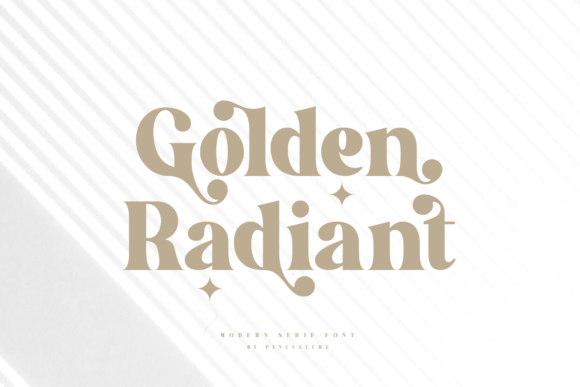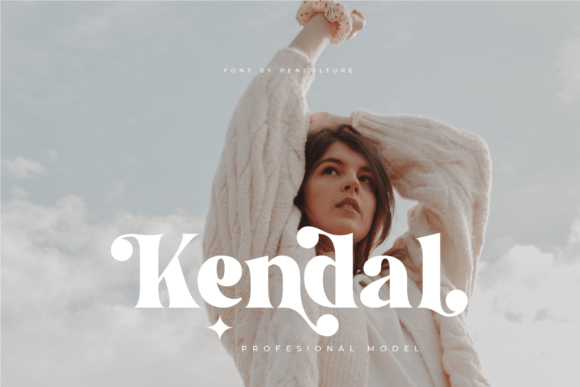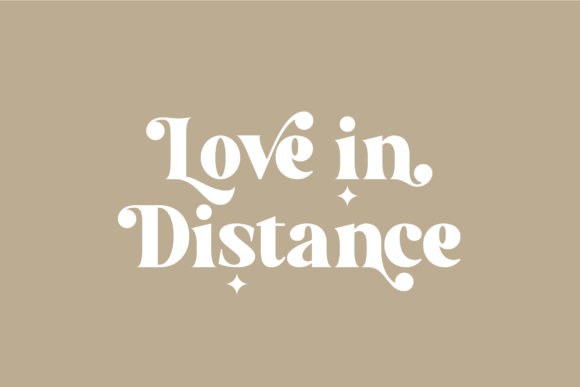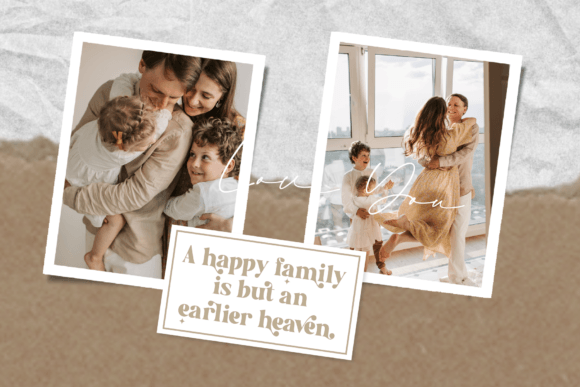
Golden Radiant Font
About the Golden Radiant Font
Unleash your creativity with Golden Radiant Font, a versatile font perfect for a wide range of applications. Golden radiant is a modern serif font with an elegant curve in each letter and also alternates. this font is perfect for all kinds of design projects such as branding, logo design, magazine, poster, invitations, and many more.
This font comes with elegant uppercase and lowercase letters, numbers, and punctuation, and 60 elegant alternate. This font is PUA Encoded and has multilingual support
Golden Radiant’s elegant curves make it ideal for headlines, logos, and short-form text in branding materials, posters, and invitations. Its refined nature lends itself well to high-end projects requiring a touch of sophistication. However, the ornate serifs may prove less legible in body text or UI elements requiring extended readability.
For optimal visual harmony, pair Golden Radiant with a clean sans-serif like Lato or Open Sans for body copy, balancing its ornate style with modern simplicity. Alternatively, a geometric sans-serif like Montserrat would create a striking contrast, highlighting Golden Radiant’s graceful curves. A subtle script font could add a touch of handwritten charm for specific applications, depending on the desired mood.
The font exudes a sophisticated and elegant personality, suitable for brands aiming for a premium or luxury image. Its refined details suggest quality and attention to craftsmanship.
Golden Radiant Font Usage Examples
Golden Radiant Font Example